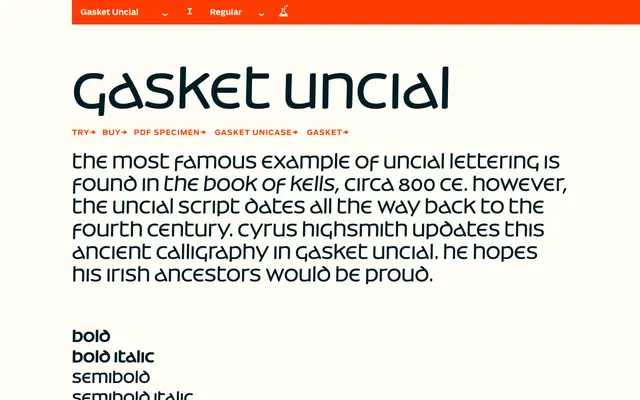
Gasket Uncial
Occupant Fonts · Cyrus Highsmith · 2016
Cyrus Highsmith's revival of uncial lettering draws on the calligraphic tradition stretching from the fourth century through to The Book of Kells, rendered across six weights with italics.
Rooted in the uncial script tradition and its most celebrated exemplar, The Book of Kells circa 800 CE, Gasket Uncial translates ancient calligraphy into a contemporary type family. Cyrus Highsmith designed six weights from Thin to Bold, each with a matching italic, giving the family genuine range for display and editorial use. Extended Latin coverage makes it viable across a broad range of European languages while retaining its distinctly historical character.
Gasket Uncial draws directly from the uncial script tradition, a historical calligraphic hand dating to the fourth century and most famously seen in The Book of Kells. Its display-oriented letterforms and historical roots place it firmly in the display category with an uncial subcategory.